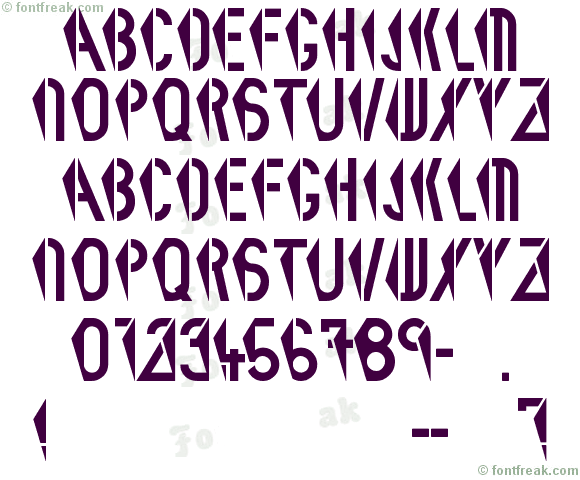
Triangle Capitals
About Triangle Capitals
Triangle Capitals by Heinz Newman is a striking display font that embodies a unique blend of geometric shapes and bold design. As a decorative typeface, it features capital letters that are meticulously crafted with sharp angles and triangular forms, creating a visually arresting appearance. The stroke weight is consistent throughout, lending a sense of harmony to the font, while the spacing is carefully balanced to ensure clarity and readability, even at larger sizes. The distinctive triangular elements add a modern flair that sets it apart from traditional typefaces.
This font is ideal for a variety of specific use cases. It can be effectively employed in eye-catching movie posters, where its boldness captures attention and conveys a sense of drama. Additionally, Triangle Capitals is perfect for restaurant menus, providing a contemporary edge that enhances the dining experience. Graphic designers can also utilize this font for branding projects, especially for companies looking to evoke a sense of innovation and creativity. Furthermore, its unique aesthetic makes it suitable for event flyers, particularly those targeting a younger demographic seeking fresh designs.